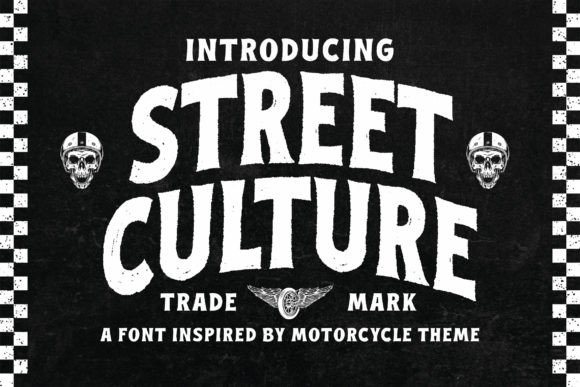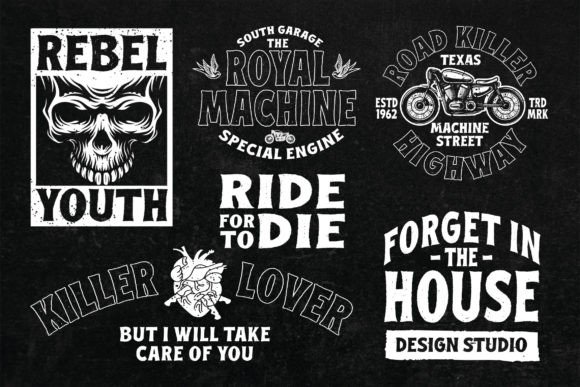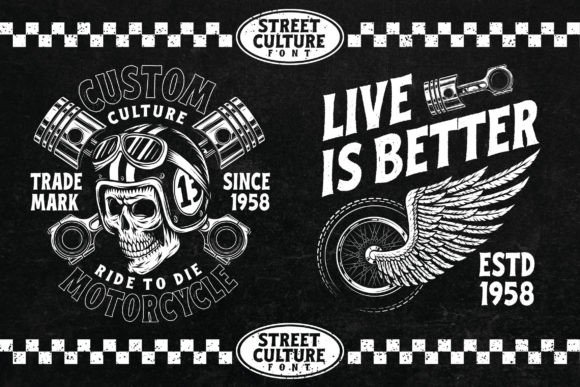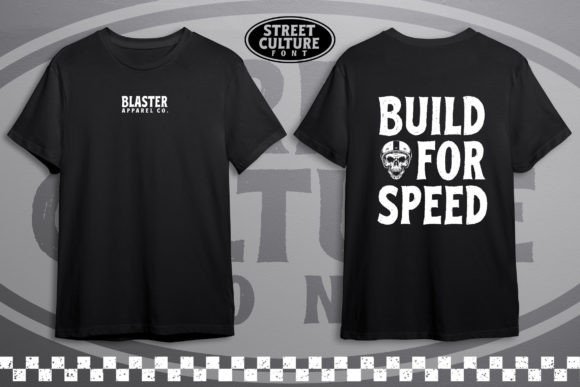
Street Culture Font: A Bold Rustic Serif for Logo Design & Posters
About the Street Culture Font
Crafted with precision, the Street Culture Font is ready to bring your ideas to life. Street Culture a Rustic Serif Font, inspired by college typography. This font is perfect for a design that makes it more attractive and playful. Made with a very good level of aesthetics this font is suitable for book covers, posters, packaging, merchandise, logotypes, and much more.
Street Culture Font Usage Examples
Street Culture Font Example